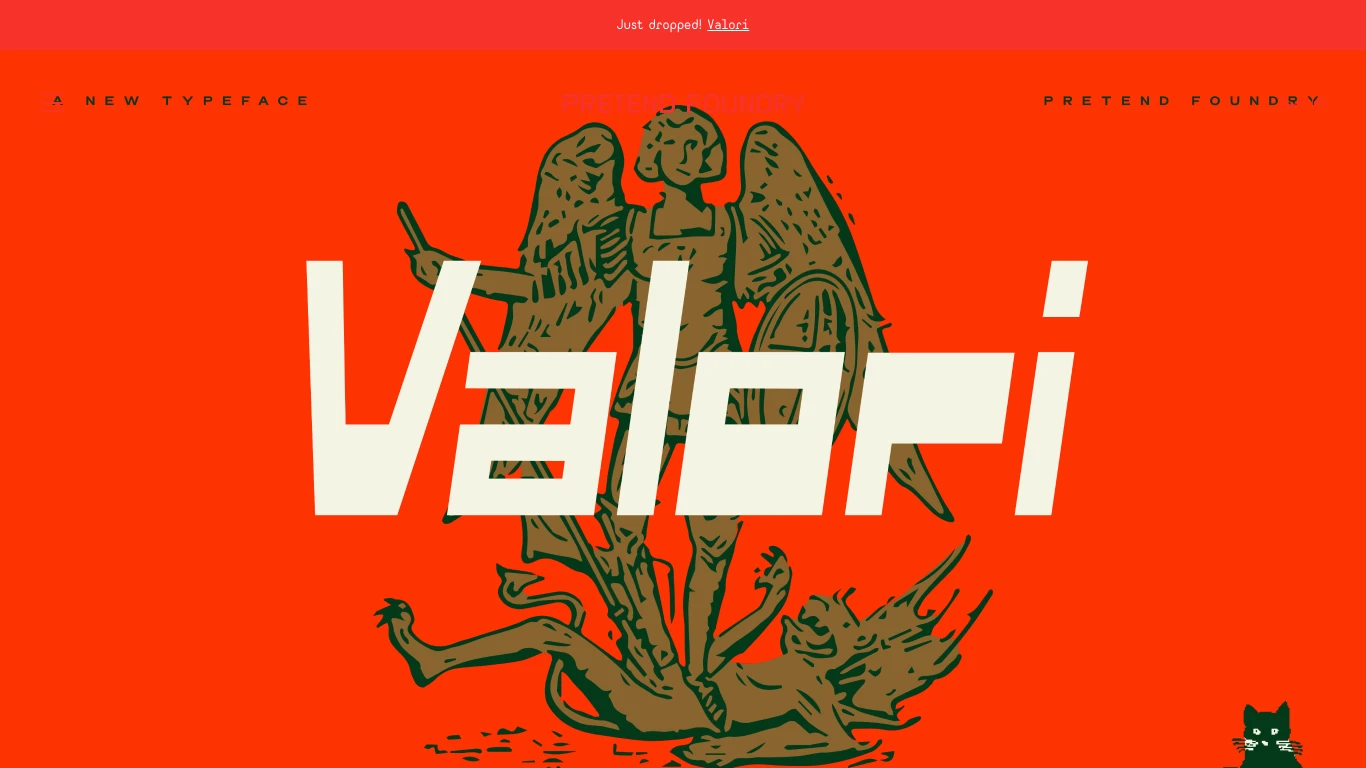
Pretend Foundry
Pretend Foundry is the in-house type foundry of Fuzzco, founded as a creative outlet (no specific launch date given) where all fonts are dreamed, designed, and produced by Fuzzco’s team. Its catalog features names inspired by local landmarks—typefaces like Easley (a quirky everyday sans), Folly (a compact, ballooning display face born during quarantine), Chalmers (a multi-style homage to karaoke-lit streets), Broad (a versatile grotesque/geometric hybrid), Benson (looping display inspired by Portland fountains), Puget (a rounded sans with soft ink-traps), and the architectural Monolita, rooted in Mayan and Aztec influences. The foundry serves no external clients—it’s a playground for internal experimentation—but stands out for its narrative-driven, place-based naming and design, and for being home to the “Font Builder™” tool that makes type creation a collaborative studio experience.